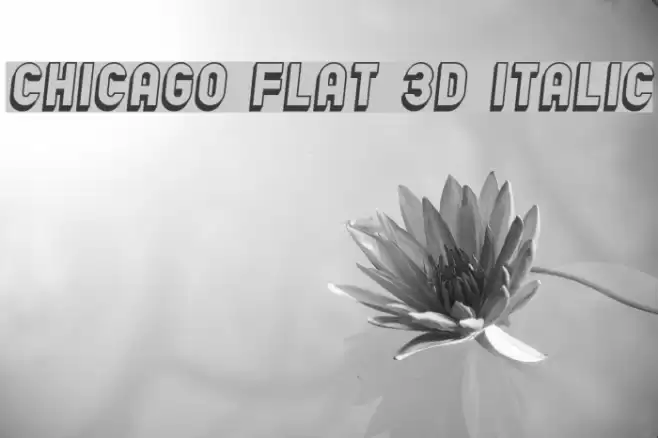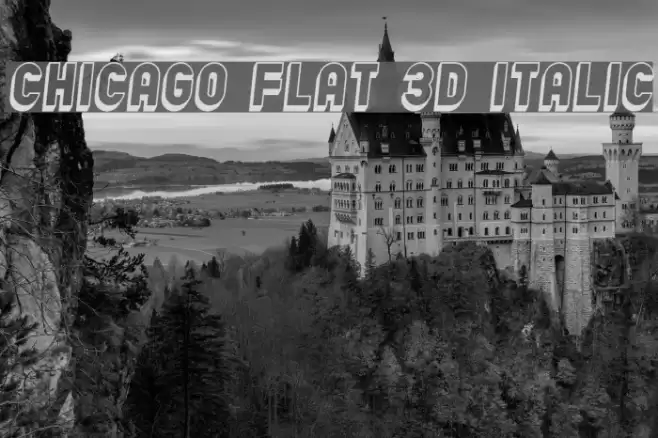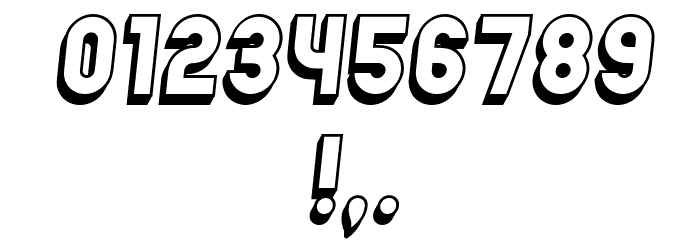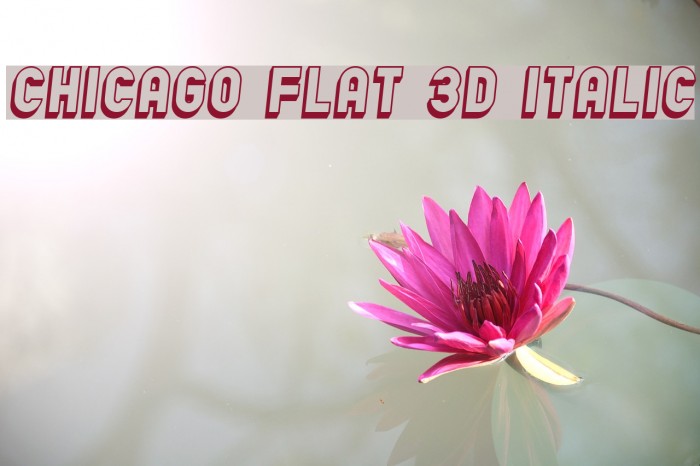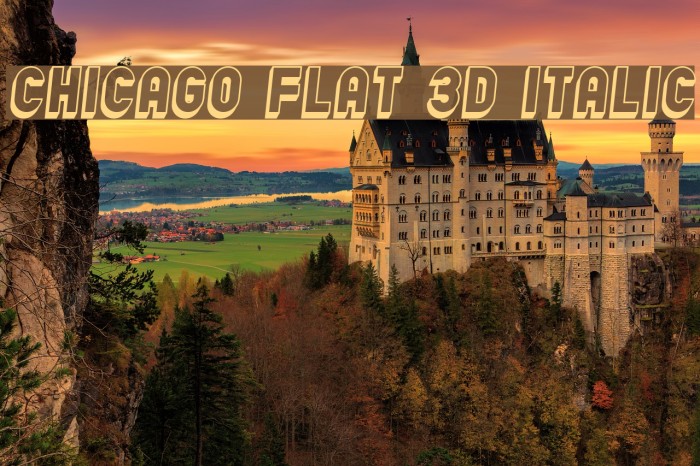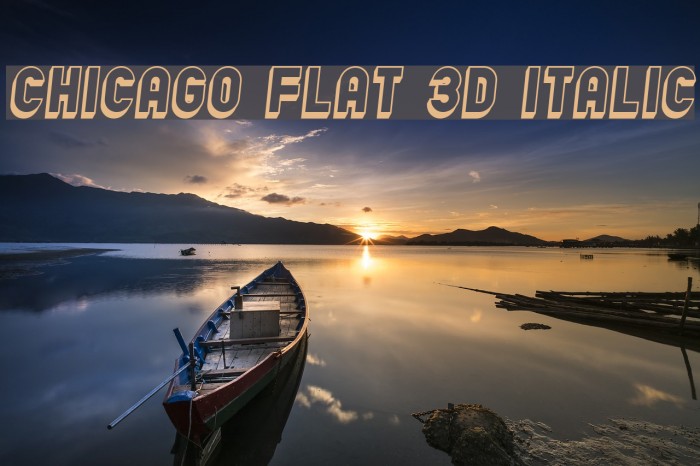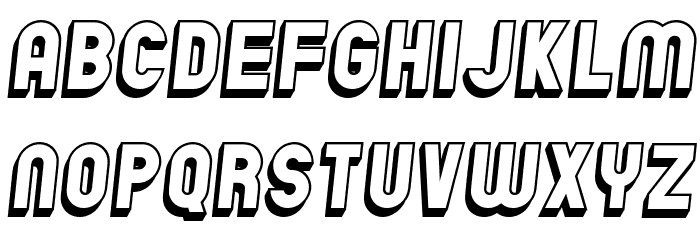
Chicago Flat 3D Italic Font
Chicago Flat 3D Italic Description
This font features a bold, three-dimensional appearance with a flat design that gives it a modern and dynamic look. The letters are italicized, adding a sense of motion and energy. Each character is outlined with a thick black shadow, enhancing the 3D effect and making the text stand out. The font maintains a consistent stroke width, contributing to its bold and impactful presence. The characters are well-spaced, ensuring readability while maintaining a compact and cohesive look. This style is particularly eye-catching and suitable for attention-grabbing designs.
A bold, 3D italic font with a modern, dynamic look from Uncategorized fonts.
- Proposed Projects: Ideal for posters, headlines, logos, and any design requiring a bold statement.